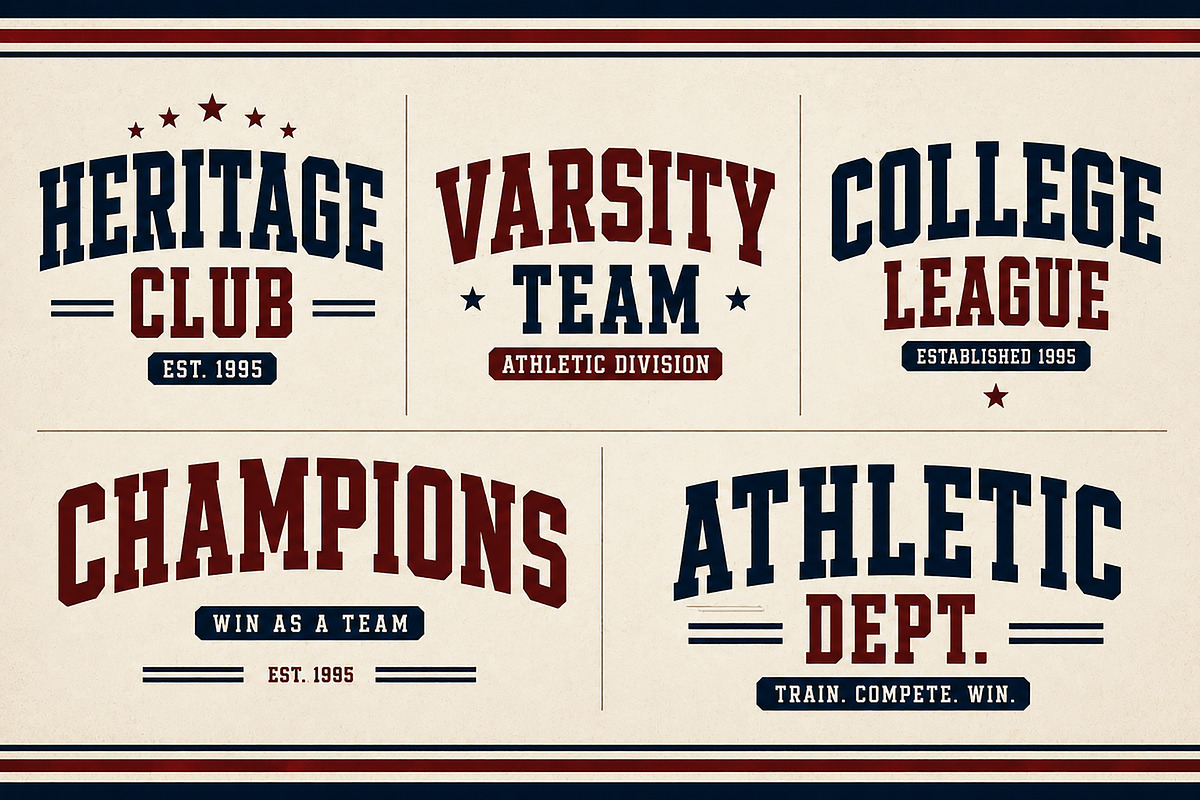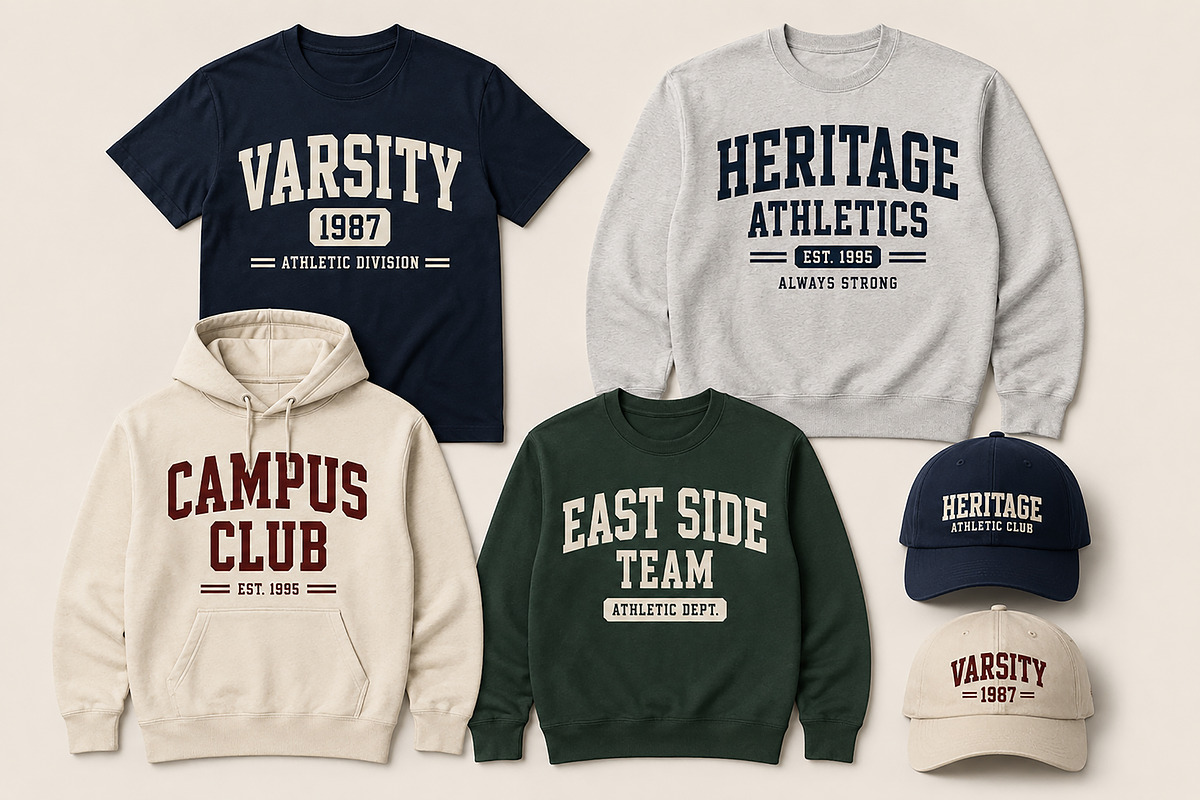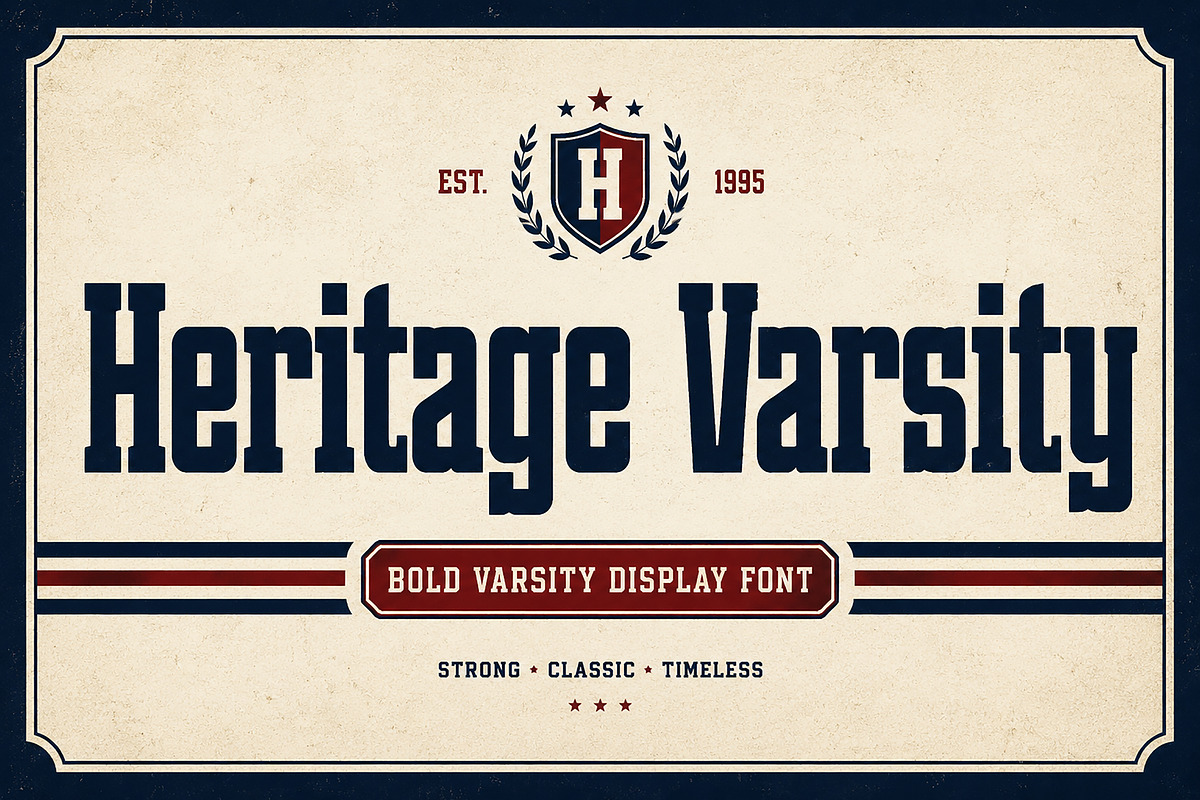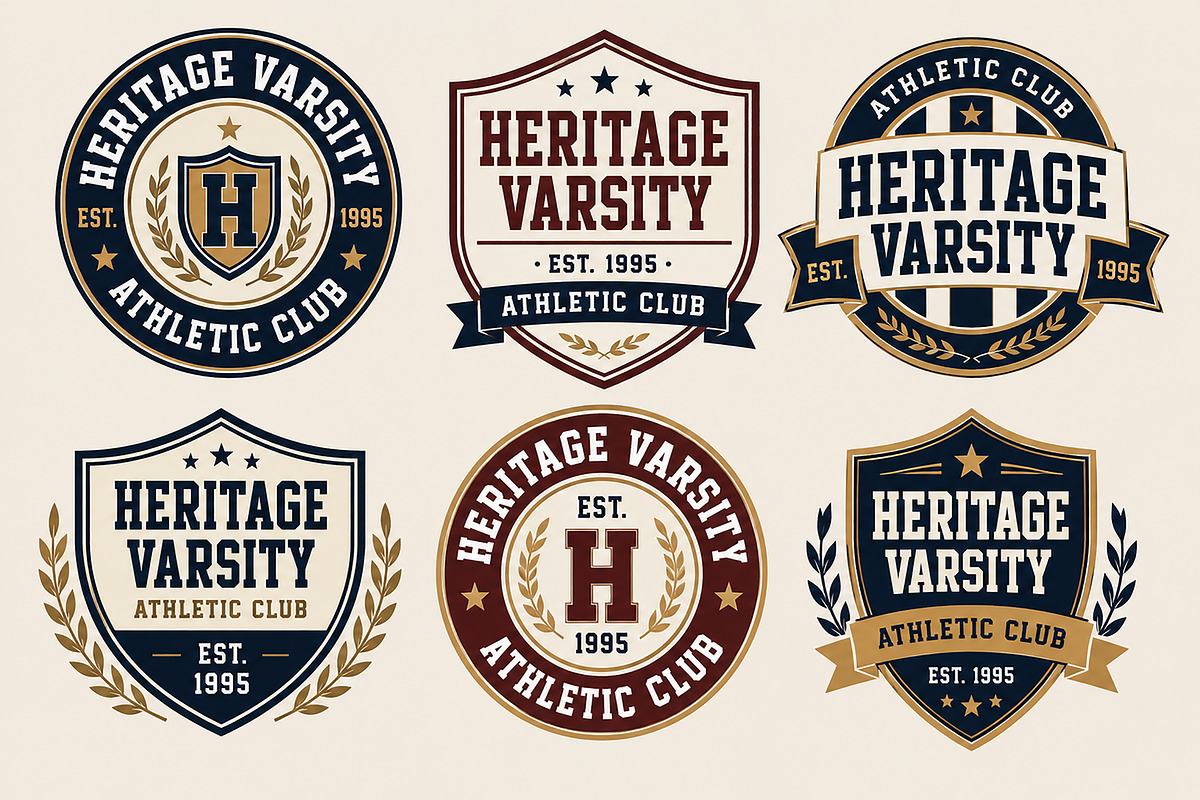
Heritage Varsity
Heritage Varsity is a bold collegiate display font inspired by classic American university lettering, vintage athletic apparel, and timeless campus branding. Featuring strong slab-inspired letterforms, balanced proportions, and a confident varsity aesthetic, this typeface is perfect for creating eye-catching headlines, sports logos, team merchandise, badges, and retro-inspired branding.
Designed to deliver a clean yet nostalgic look, Heritage Varsity combines traditional college style with modern versatility, making it an excellent choice for both print and digital projects.
Whether you're designing apparel, sports branding, school merchandise, event posters, or premium logo designs, this font brings an authentic varsity character that stands out with confidence.
Bold Collegiate Display Style
Classic Varsity Letterforms
Strong Athletic Appearance
Clean & Professional Design
Easy to Read
Perfect for Large Headlines
Uppercase & Lowercase Characters
Bring timeless collegiate spirit to your next creative project with Heritage Varsity—a bold display font built for sports, branding, and premium varsity-inspired designs.